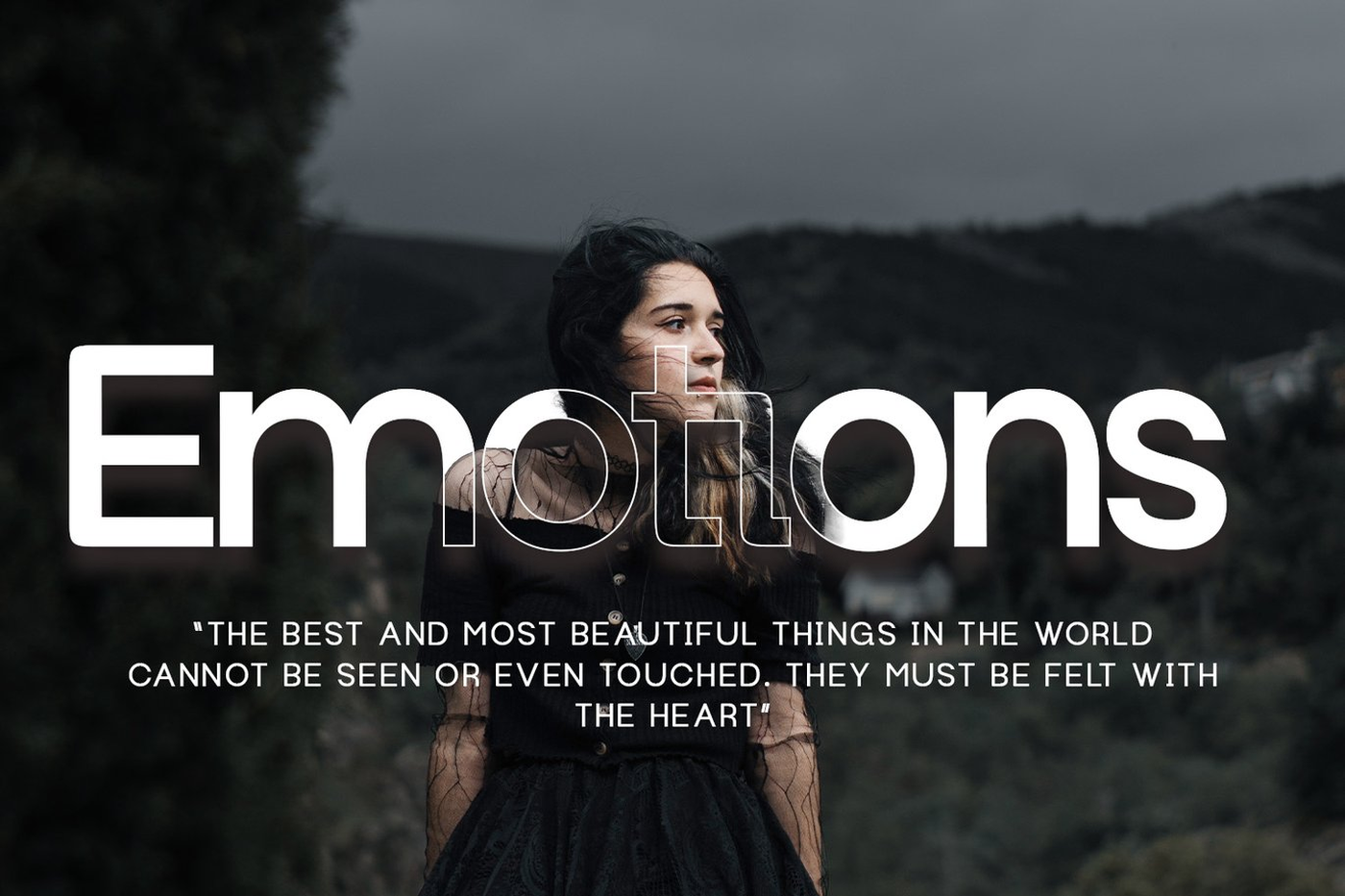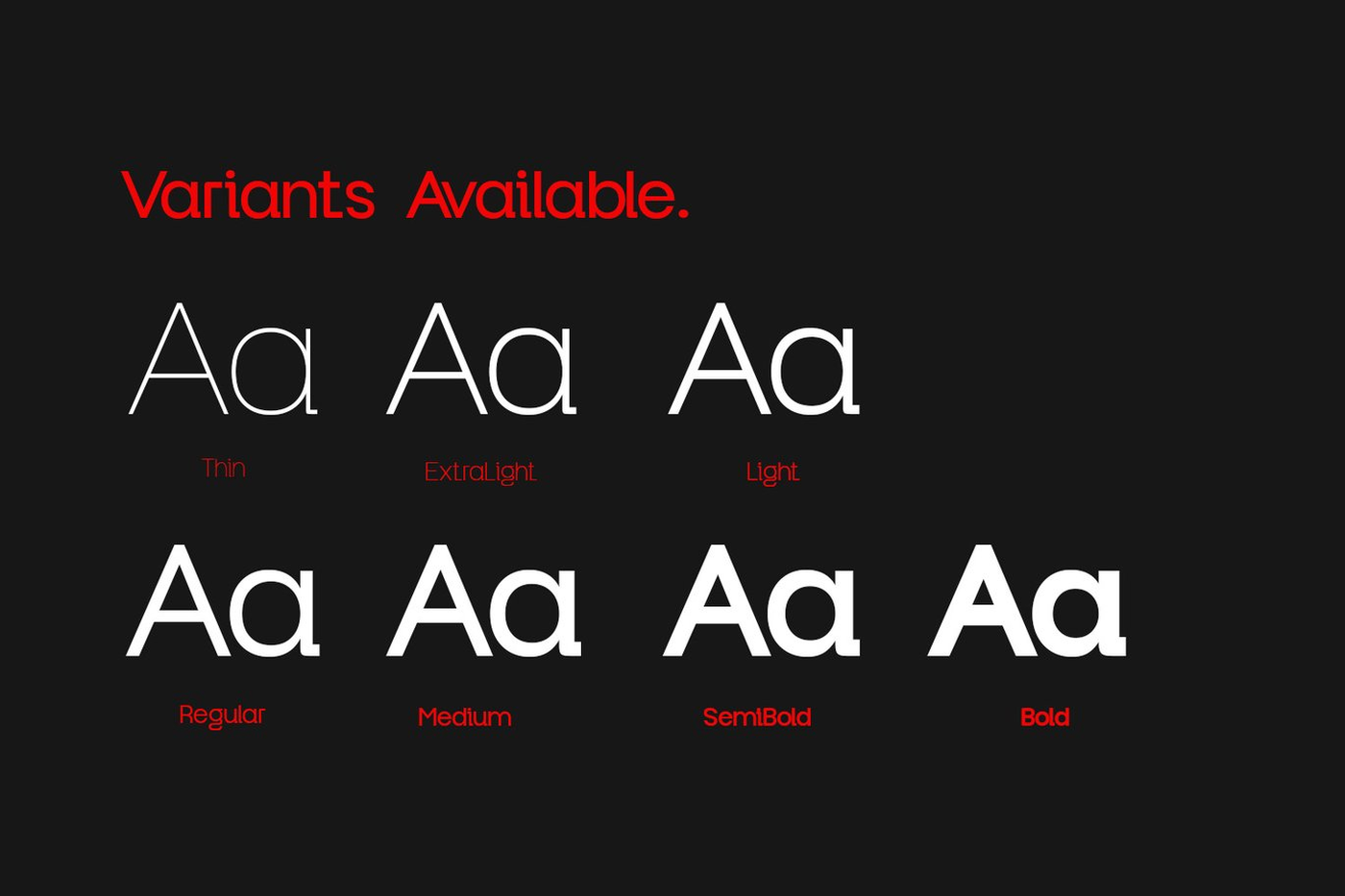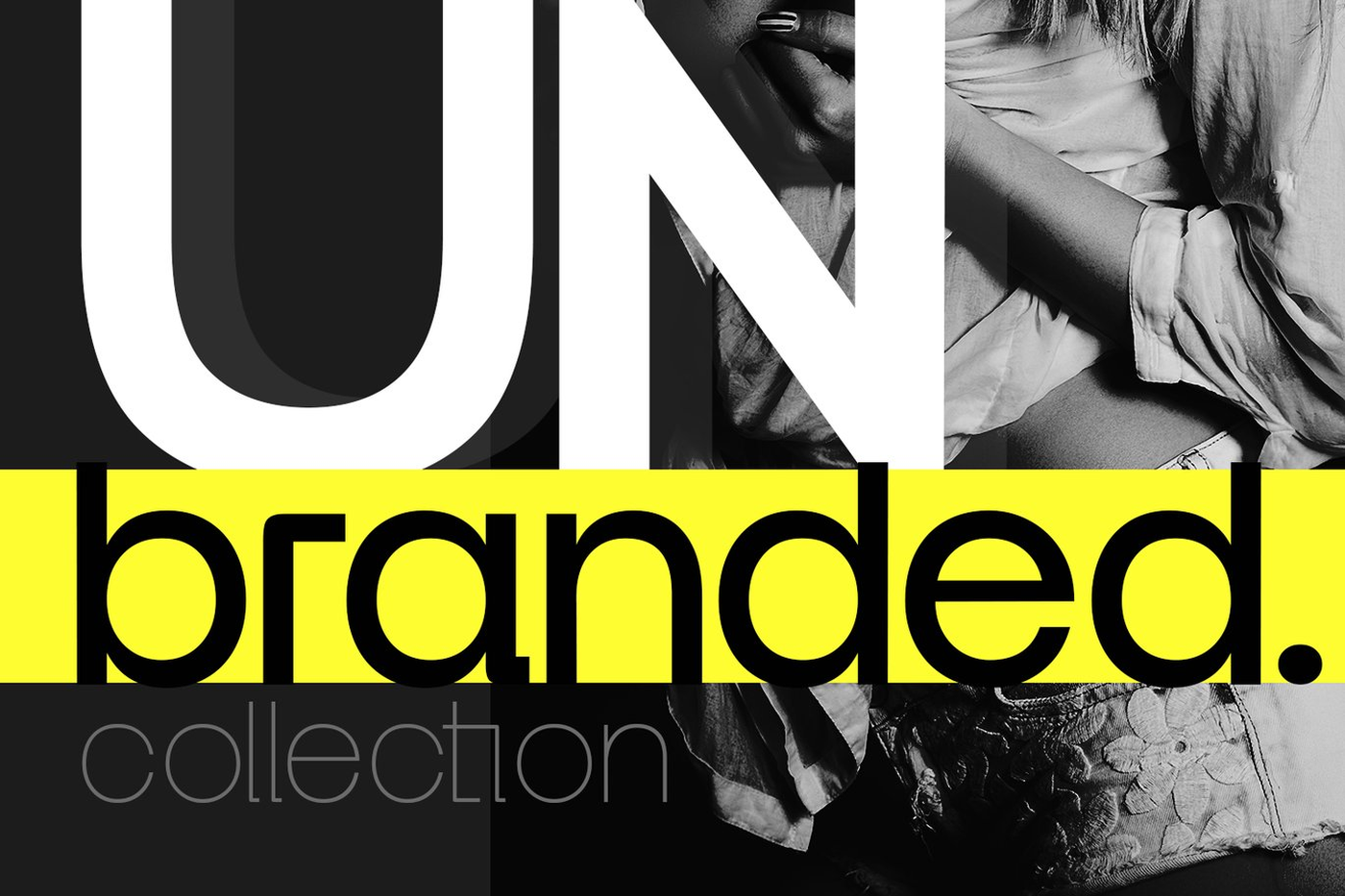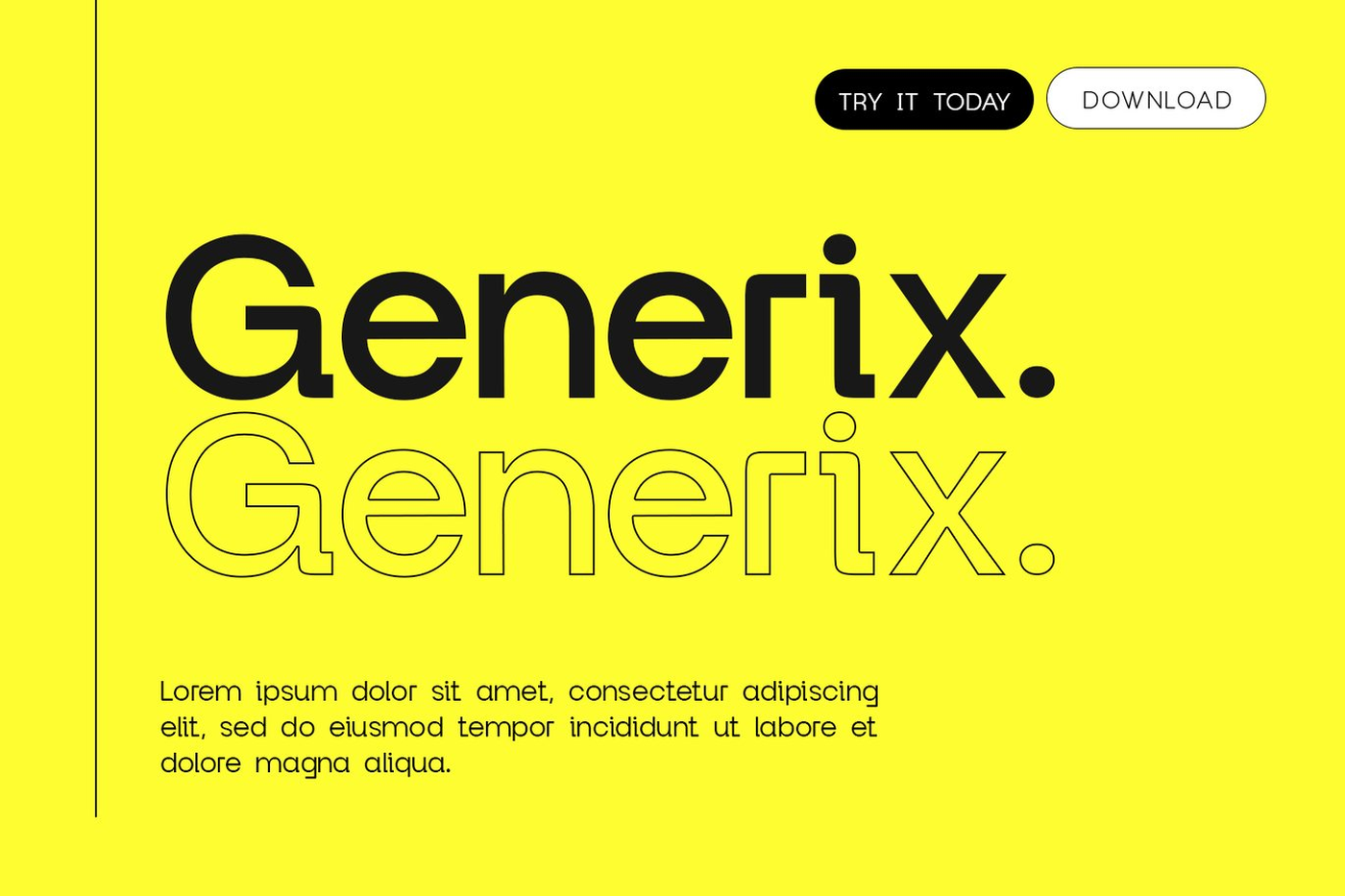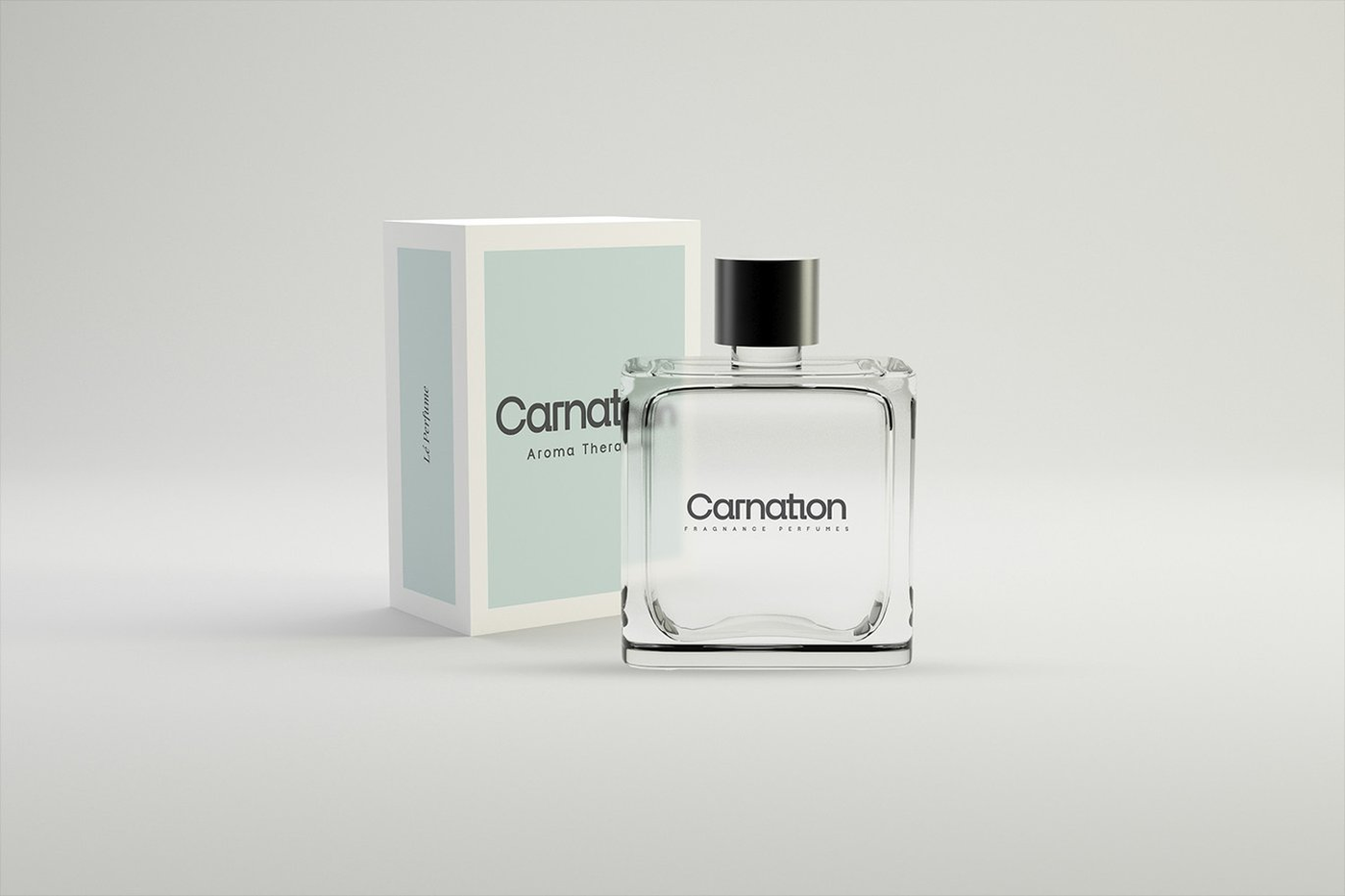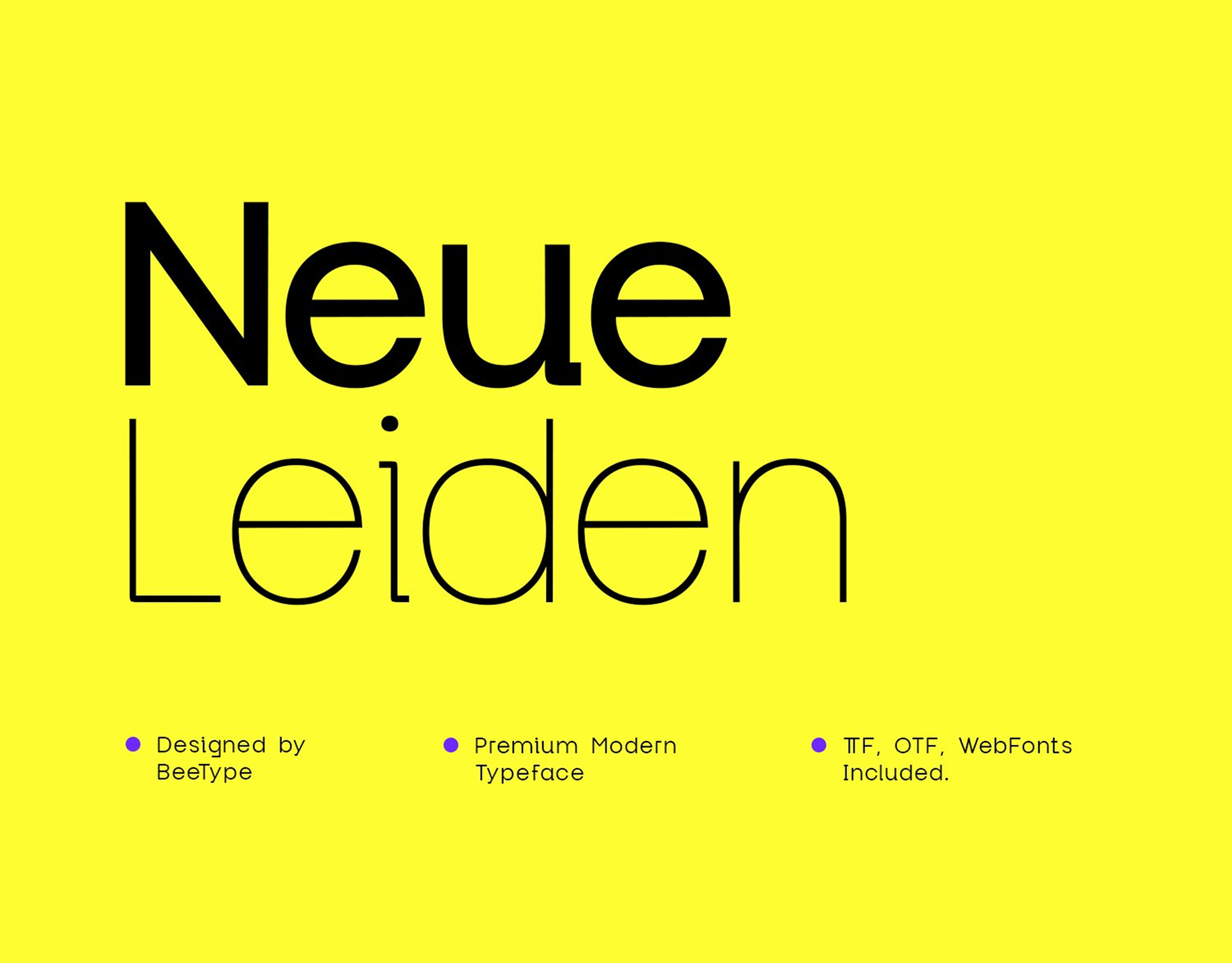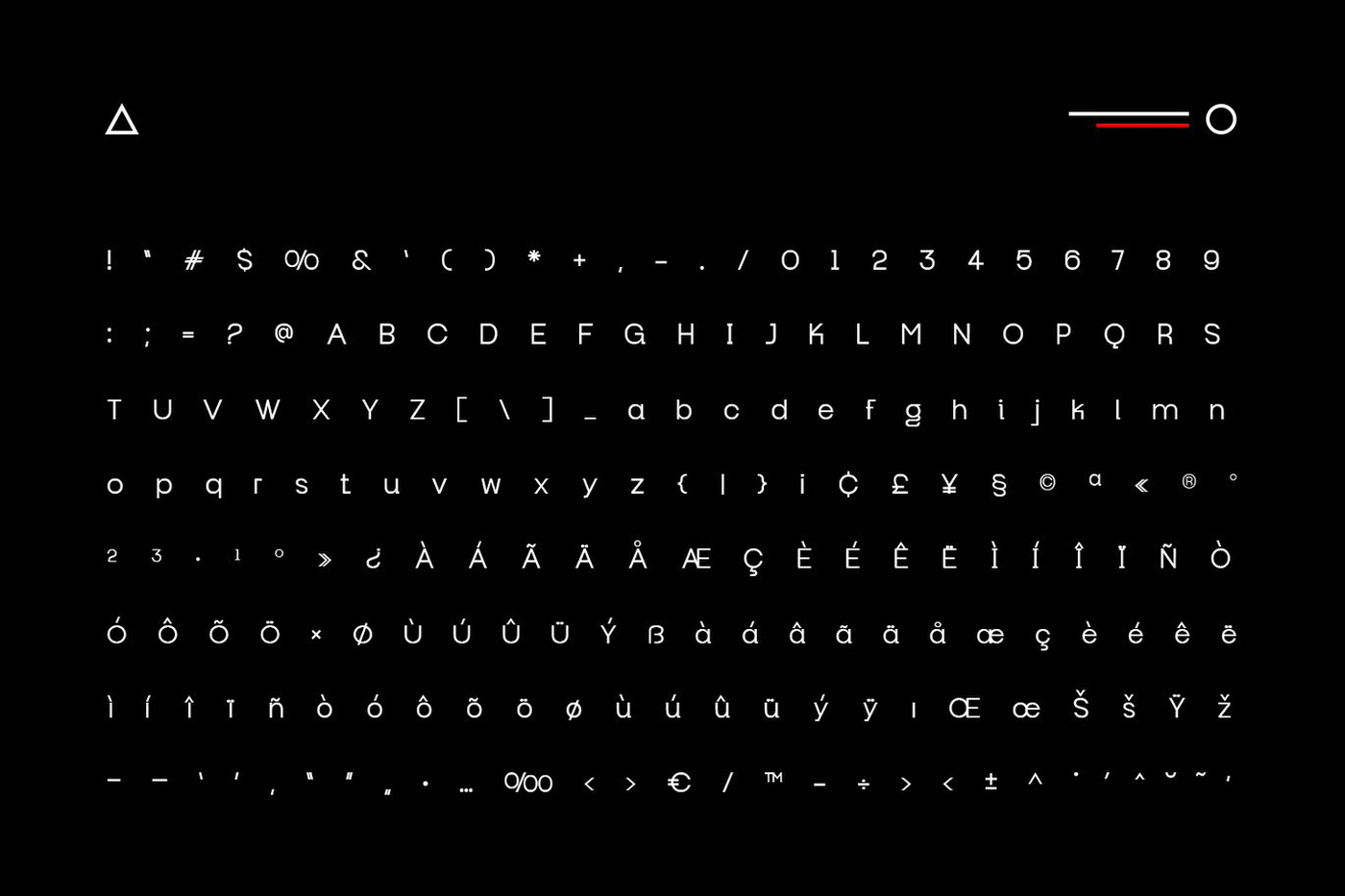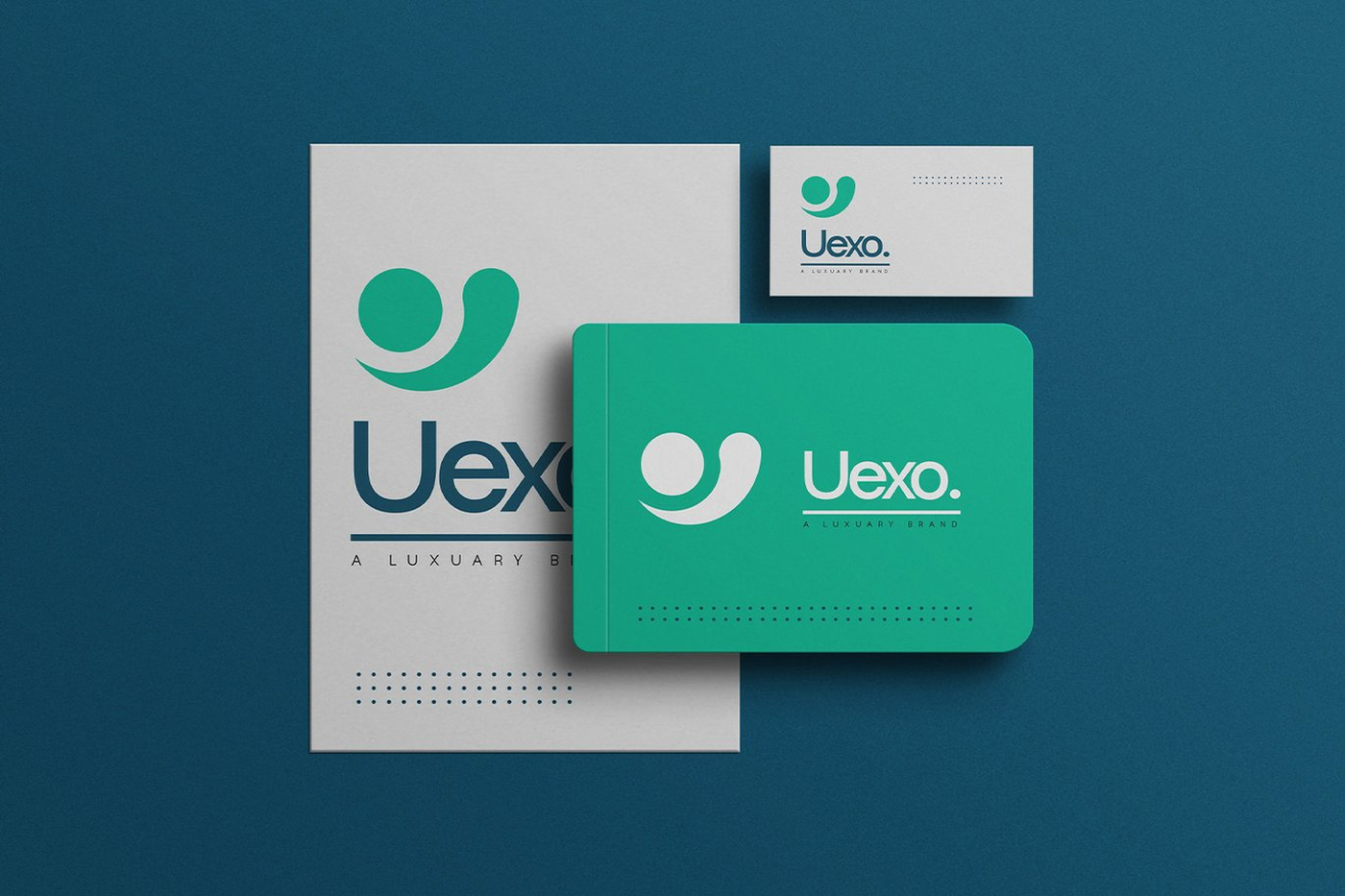
Neue Leiden - Sans Serif Font
Neue Leiden is a stunning modern typeface that boasts clean lines, An extremely versatile font, It is perfect for logos, weddings, invitations, quotes, advertisements, print, magazines, and more! Neue Leiden Display is perfect for designs that need to have a traditional, antique feel while still being sleek and minimalist. It will look fantastic with any logo, product name, poster, or design. When describing it, words like elegant, minimal, classy, and modern come to mind. It’s great for fashion, clothing styles, signatures, album covers, magazines, social media, and advertisements, among other things. This font has 200 above glyphs and extensive Latin script support and upper and lowercase sans serif characters. It carries a powerful, unique, and social character line with a premium finish, giving a new impression. An elegant, authentic, and thin lettered serif font. Neue Leiden Is a 7 Variant Font